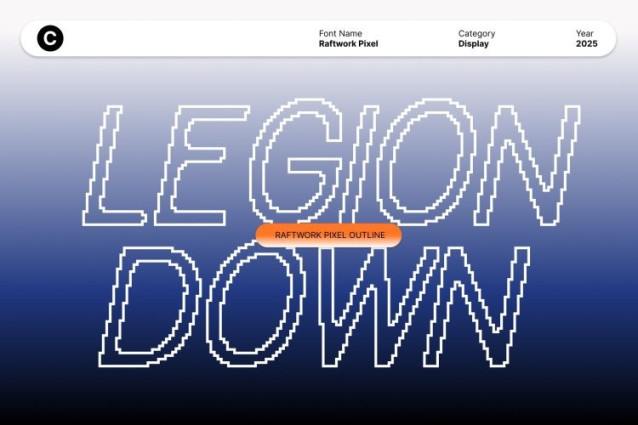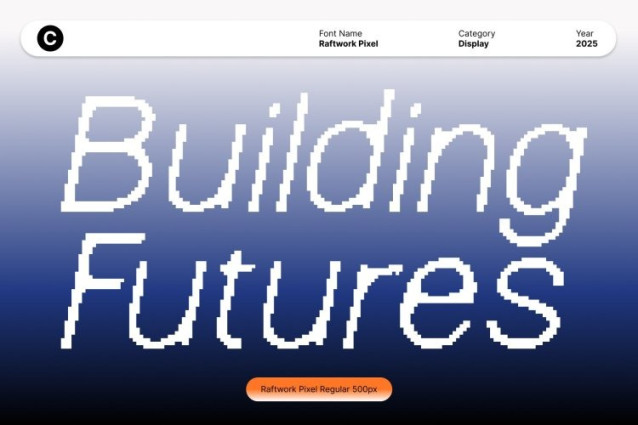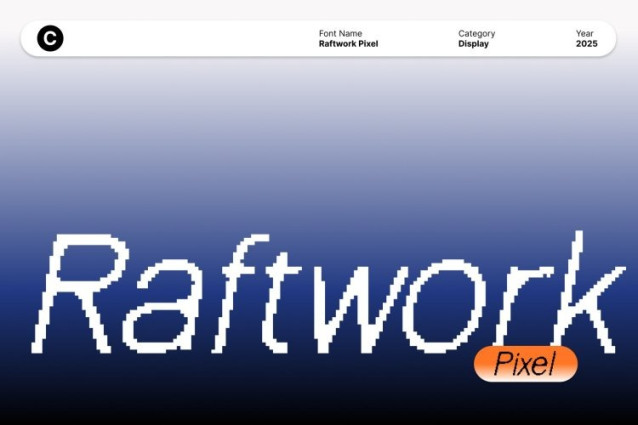
Raftwork Pixel Font
Raftwork Pixel Font is a contemporary sans serif font designed to combine sleek modernity with a distinctive pixel-inspired texture. Its clean, sharp lines create a refined sense of style, while the pixel details give it a modern, tech-savvy personality that stands out in any design.
Pixel Texture for Digital Expression
The unique pixel texture adds character and a fresh, digital aesthetic to each letterform. This subtle yet expressive detail makes Raftwork Pixel perfect for projects that require a contemporary, tech-forward look, while maintaining readability and visual appeal.
Sleek and Versatile for Creative Projects
With its clean, geometric forms, this font delivers versatility across a wide range of applications. Ideal for logos, titles, headlines, posters, or digital interfaces, the font balances modern sophistication with playful, pixelated charm, allowing designs to feel both professional and innovative.
Impactful Typography for Modern Branding
This font elevates your creative projects with its bold yet refined style. Whether used for branding, editorial layouts, or digital media, it ensures a strong visual impact while communicating modernity, clarity, and fresh energy in every project.